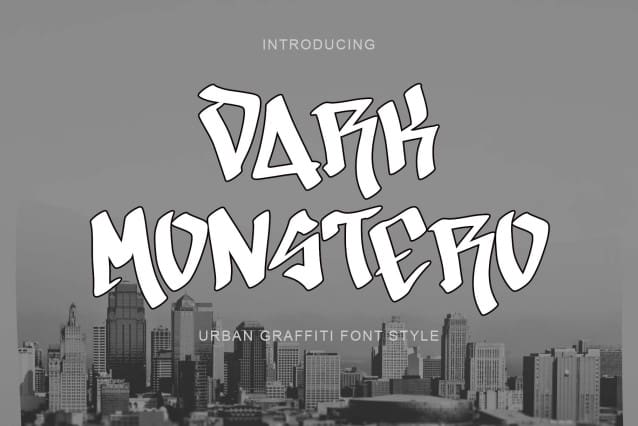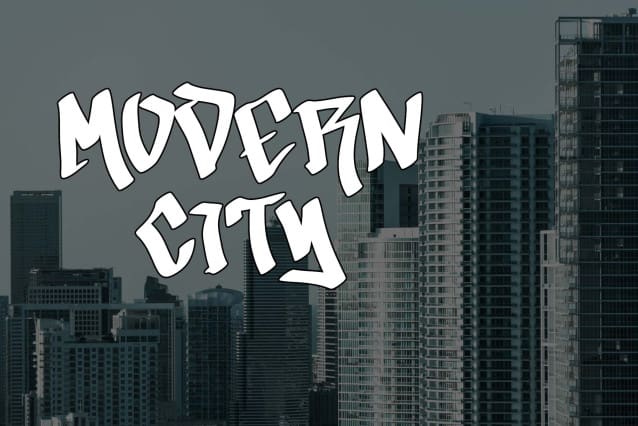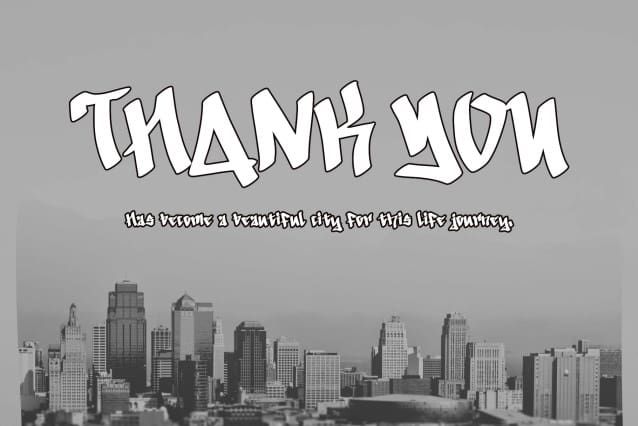
Dark Monstero Font
Dark Monstero Font is a cool, trendy graffiti font. Add it to your creative project and you will be amazed by the generated outcome!